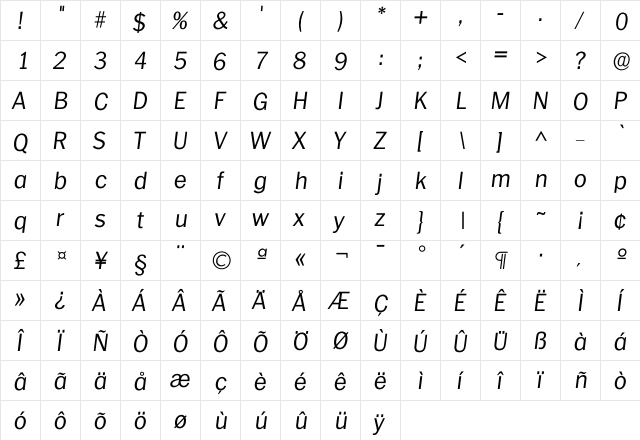
Iplymouth Light
Design Context for Iplymouth Typeface
Iplymouth takes a measured approach to typography — its balanced proportions and neutral character make it a reliable workhorse for both digital and print work. The delicate stroke weight brings airiness and refinement to layouts.